Student Personal Branding: Do You Need a Personal Logo?
Do Students Need a Personal Logo? Building a Brand Before Graduation
In the past, a university student’s "brand" was essentially their GPA and a list of extracurricular activities typed out on a sheet of white paper. Today, the recruitment landscape has shifted dramatically. Hiring managers are Googling candidates before they even schedule an interview, and your digital footprint often speaks louder than your cover letter. In this hyper-visual digital age, the question is no longer just "What are your qualifications?" but "Who are you?" This shift has led many ambitious students to ask: Do I need a personal logo?
The short answer is: You don't need one to graduate, but you might need one to stand out. As you navigate the final challenging years of your degree, perhaps searching for an undergraduate dissertation platform to help organize your research or finalize your thesis, it is easy to get tunnel vision on academics. However, building a visual identity now, before you enter the job market, can be the differentiator that makes your application memorable in a sea of standard resumes.
The Shift from Candidate to "Me, Inc."
A personal logo is not about vanity; it is about consistency. It serves as a visual shorthand for your professional identity. When a recruiter sees the same clean monogram on your resume, your LinkedIn banner, and your portfolio website, it signals attention to detail. It suggests that you view yourself as a professional entity, not just a student looking for a job.
This concept of "Me, Inc." is particularly relevant for students in creative fields like marketing, design, and communications. However, even for business, law, or engineering majors, a personal brand mark adds a layer of polish. It shows that you understand the modern world operates on visuals. A well-designed personal logo acts as a seal of quality, tying together your diverse projects, internships, and academic achievements under one cohesive banner.
Expert Insight on Branding
What Does a Student Logo Look Like?
You do not need to hire an expensive agency to create a personal logo. In fact, for most students, simpler is better. A student logo is rarely a complex abstract symbol like the Nike swoosh. Instead, it usually falls into one of three accessible categories:
- The Monogram: This is the most classic and "safe" option. It involves interlocking or creatively arranging your initials. It projects authority, tradition, and professionalism. Think of high-end fashion brands or law firms.
- The Signature: A stylized version of your actual signature (or a clean script font) feels personal and human. This works exceptionally well for writers, teachers, and consultants who want to emphasize the personal relationship they bring to a role.
- The Minimalist Icon: If your name is "Rose," using a stylized geometric flower might work. If you are a coder, a bracket symbol </> combined with your initial could be effective. However, this is the hardest to execute well without looking cheesy.
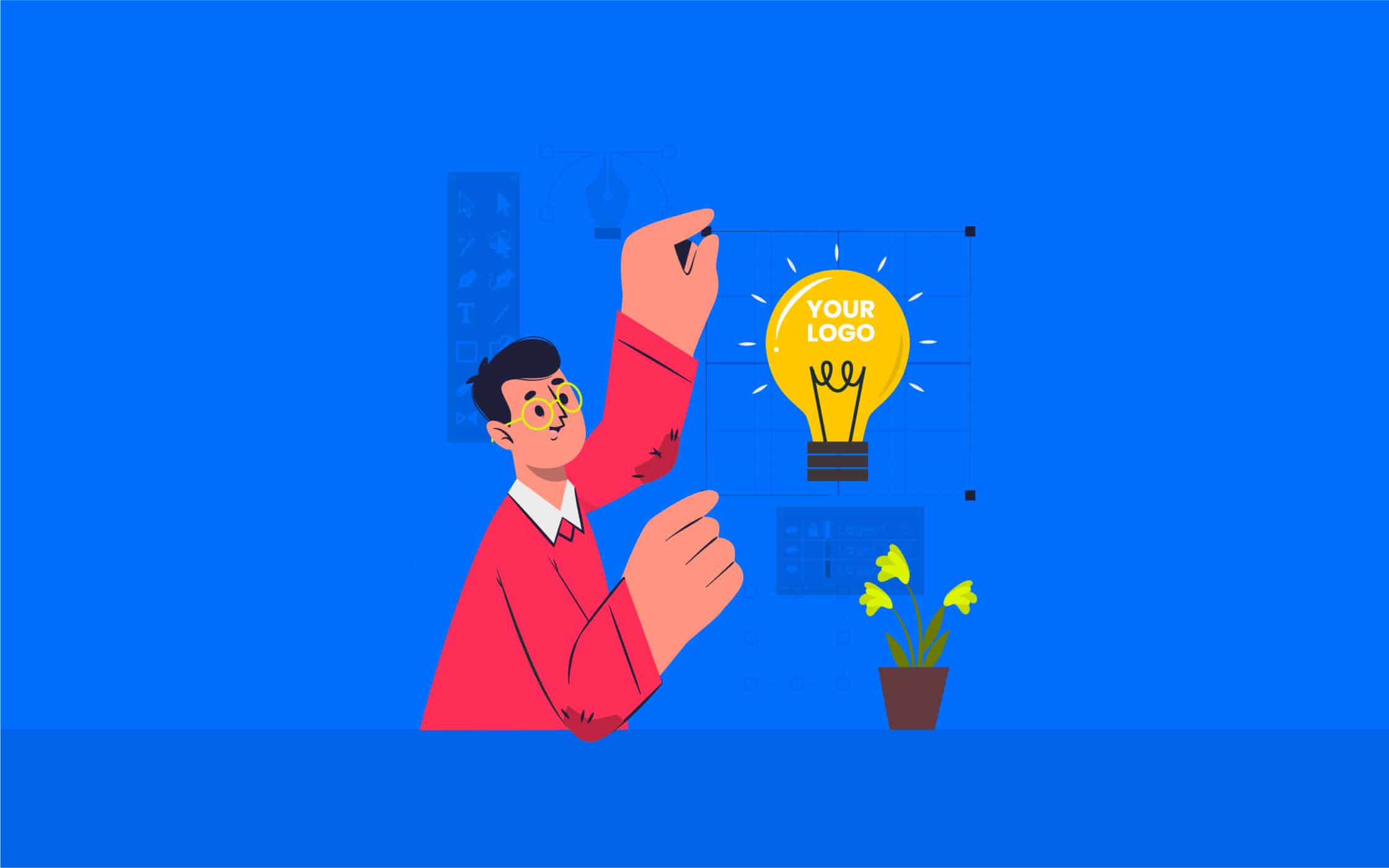
Where to Use Your New Brand
Once you have established a simple, clean visual mark, you need to deploy it strategically. Overusing it can look arrogant, but using it subtly creates a thread of continuity across your application materials.
Consider placing your logo in the header of your resume and cover letter. This instantly makes your documents look like a matching set rather than two separate files. Next, use it as the profile picture for your professional email account (if you use Gmail) or as a watermark on your digital portfolio. If you attend networking events, having a business card with your logo, even if your job title is just "Honors Student," makes you memorable. The goal is repetition: you want the hiring manager to subconsciously associate that specific visual mark with the high quality of your work.
Avoiding Common Pitfalls
While a logo can elevate your status, a bad design can undermine it. To ensure your personal brand helps rather than hurts, keep these rules in mind:
- Keep It Simple: Avoid gradients, shadows, or using more than two colors. Your logo must look crisp in black and white and remain legible even when sized down for a smartphone screen.
- Prioritize Content: Never let the branding overshadow your actual qualifications. Your logo is the frame, not the painting.
- Proofread First: A beautiful logo cannot save a resume full of typos. If your design is perfect but your text is sloppy, the branding will only highlight your lack of attention to detail.
Conclusion
Building a brand before graduation is an investment in your future self. A personal logo is a tool that forces you to define who you are and how you want to be perceived. It serves as a visual promise of the quality you bring to the table. By taking the time to craft a simple, professional identity now, you enter the workforce not just as a graduate with a degree, but as a professional with a brand.